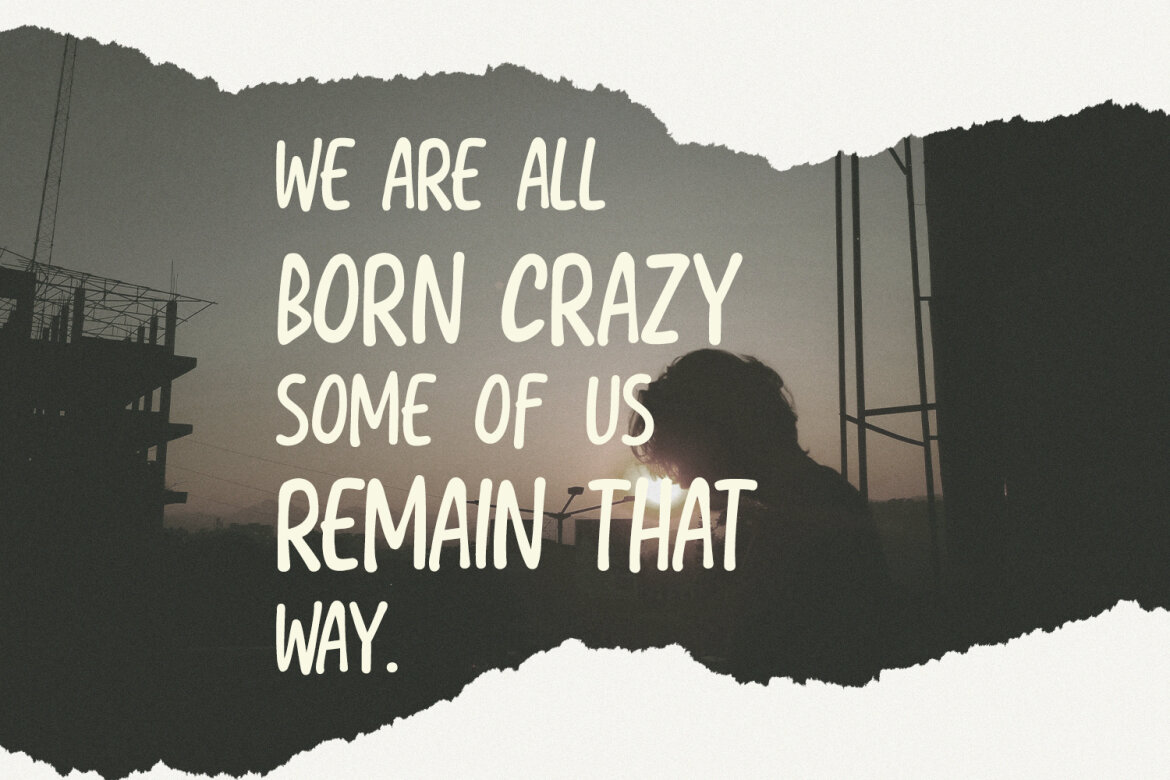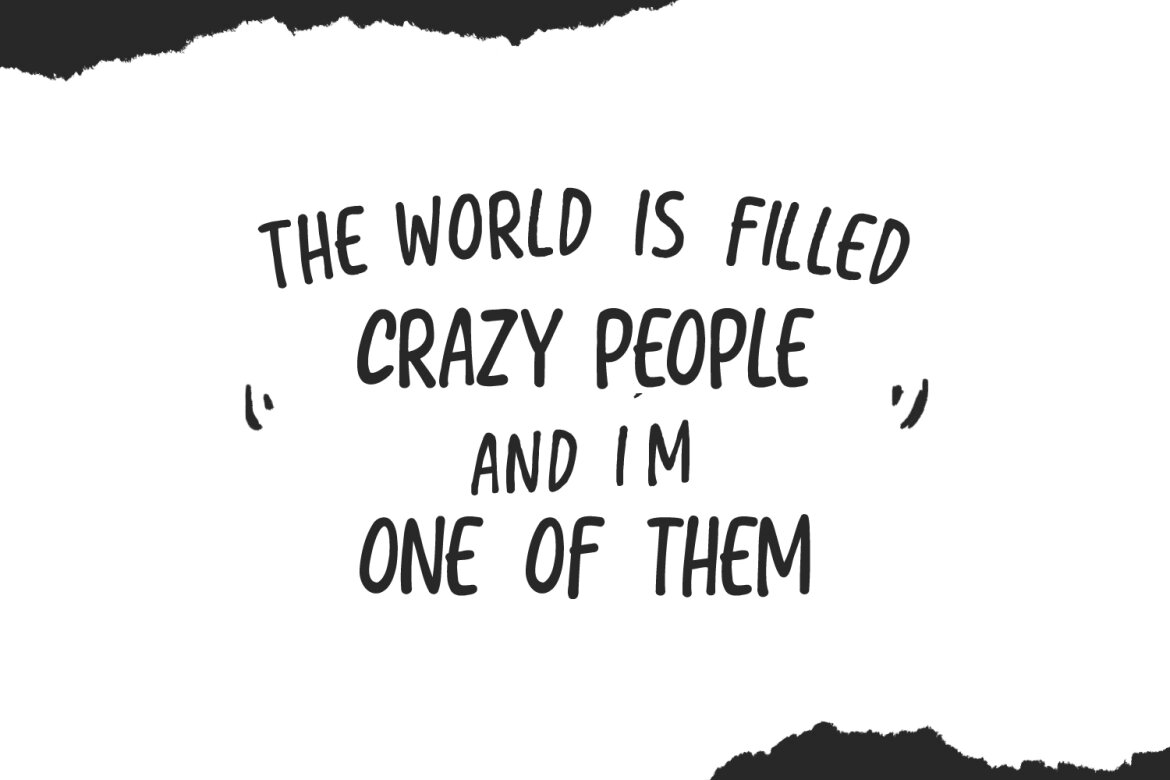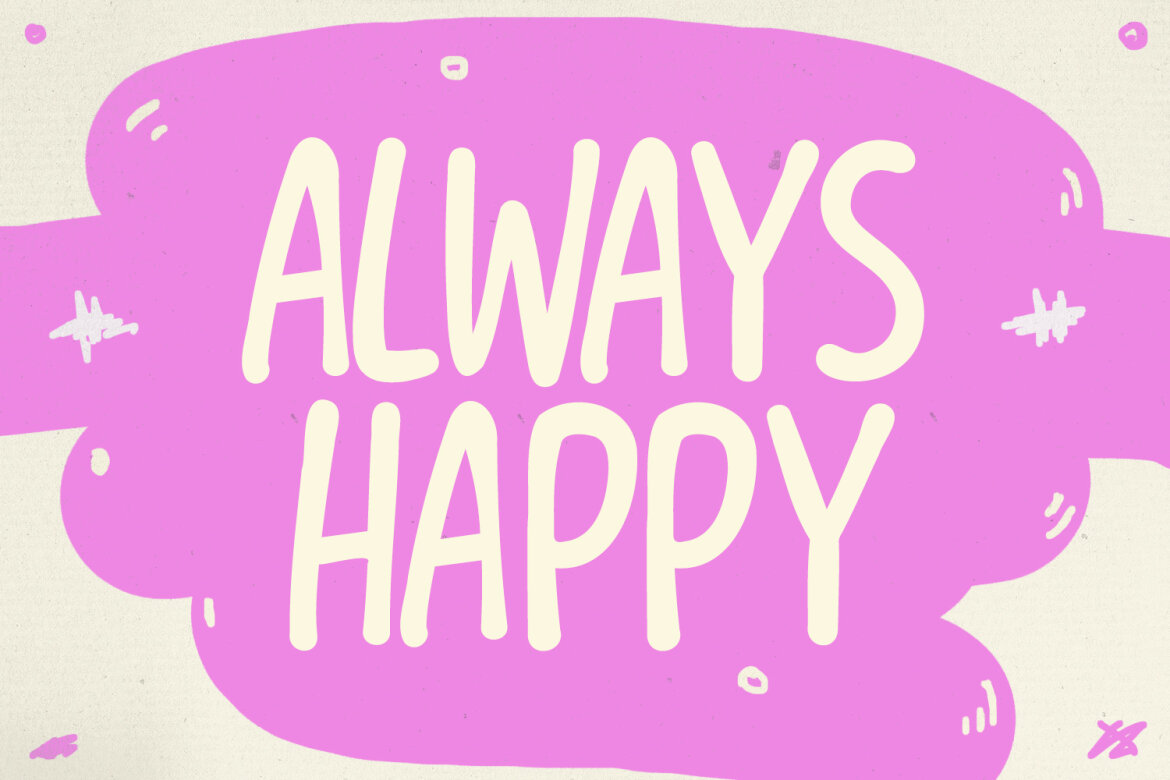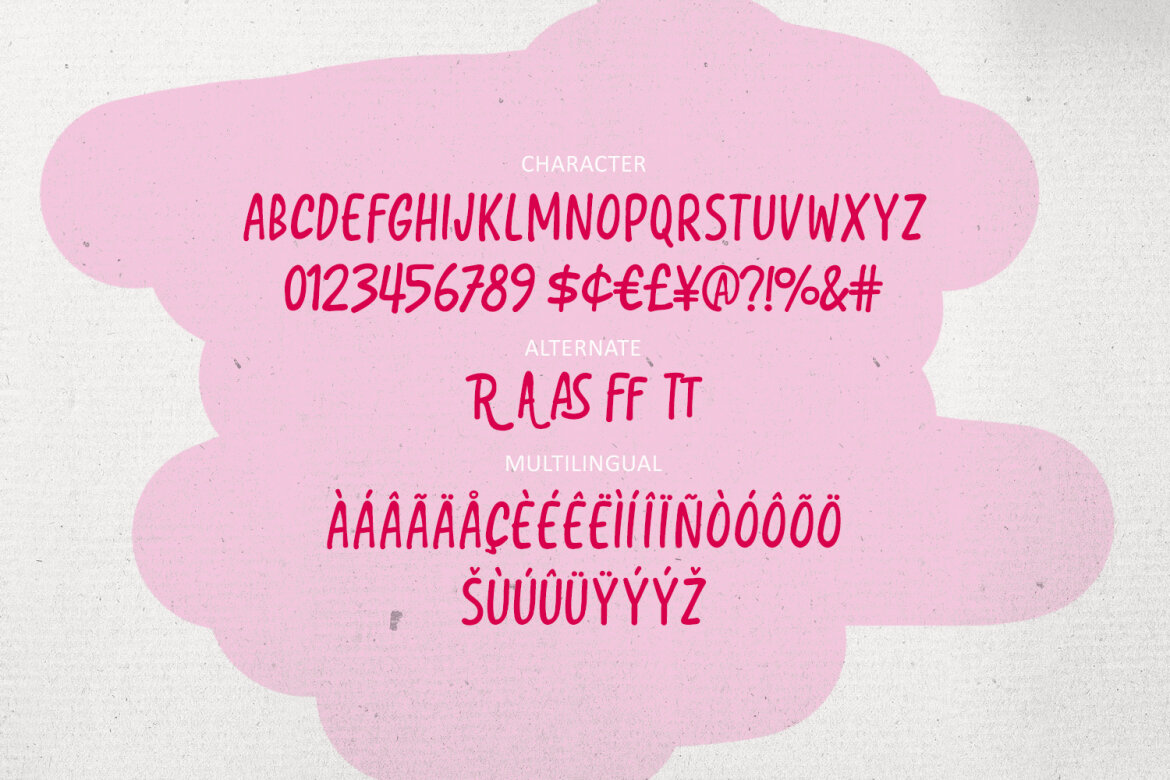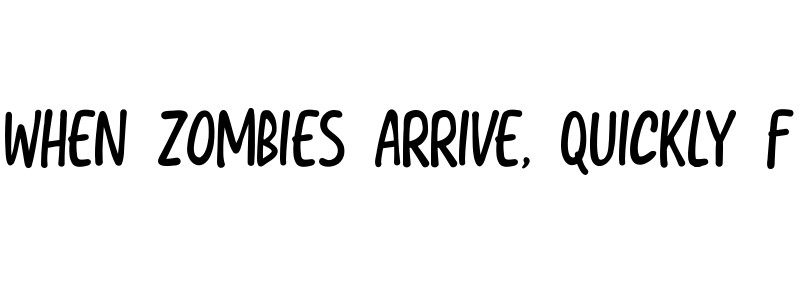
Casolion Resdomic Playful FREE Font
Casolion Resdomic
Introducing Casolion Resdomic, a wonderfully playful and organic handwritten monoline font designed to inject a dose of personality and fun into your designs. With its charming, slightly irregular lines and rounded, casual shapes, Casolion Resdomic captures the feel of genuine, hand drawn lettering. Perfect for projects that need a friendly and quirky touch, this font shines in branding, product, designs, social media, quotes, and children's projects.
• Numbers and punctuation
• Multilingual Support
• Ligatures and Alternates